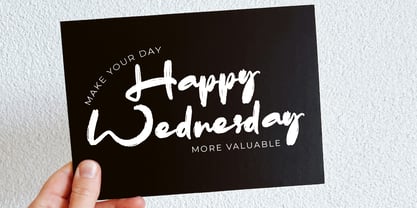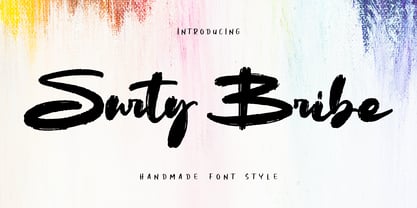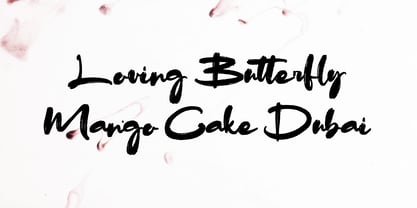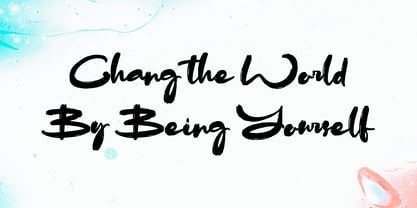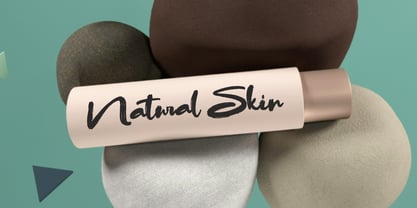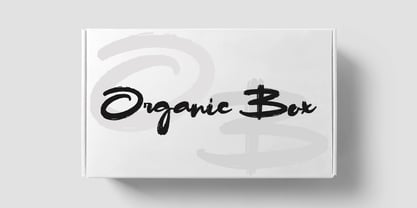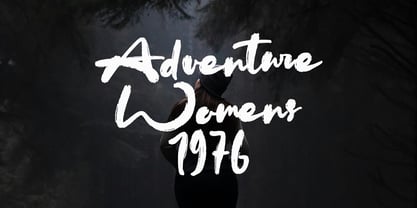
Surty Bribe
by Mega Type
The Surty Bribe Font Family was designed by M Akmal and published by Mega Type. Surty Bribe contains 1 styles. More about this family
Surty Bribe is a handmade brush font that exudes boldness, creativity, and raw artistic flair. The letterforms are expressive, with uneven strokes and thick textures that resemble real brush paint on canvas. The design strikes a balance between roughness and elegance, giving the font a modern, edgy personality. Its brushstroke details and handcrafted imperfections make it feel alive and energetic, ideal for making impactful, attention-grabbing statements.
This font is best suited for projects that demand a strong visual presence and a sense of individuality. It works exceptionally well for branding, product packaging, posters, urban-themed merchandise, artistic social media graphics, and music-related designs.
Surty Bribe adds a powerful and authentic touch to any creative project, making it a favorite for designers looking to break away from the ordinary and embrace the handmade aesthetic.